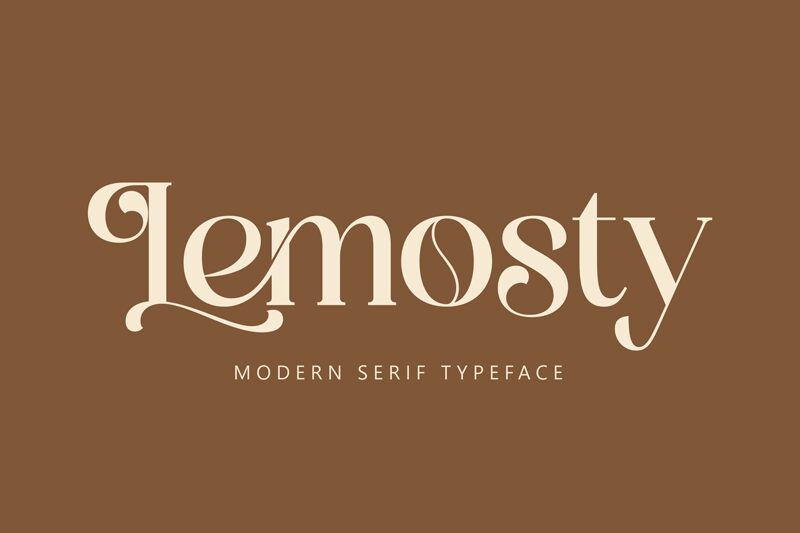
Lemosty
Lemosty Typeface emerges as a distinctive creation by Storytype Studio, harmoniously blending modern aesthetics with classic serif elegance. Its semi-light weight grants it an air of graceful sophistication, making it an impeccable choice for those seeking to infuse their creative projects with a touch of class and refinement.
With Lemosty, designers unlock a world of potential—its versatility shines in luxurious logos, cultured book or movie titles, high-fashion branding, and polished magazines. The font's charm extends to personalization through stylish clothes labeling, evocative lettering, and inspirational quotes.
Elevate your design narrative with the unique style and modern look of Lemosty—the quintessence of typeface artistry tailored for contemporary creative expression.